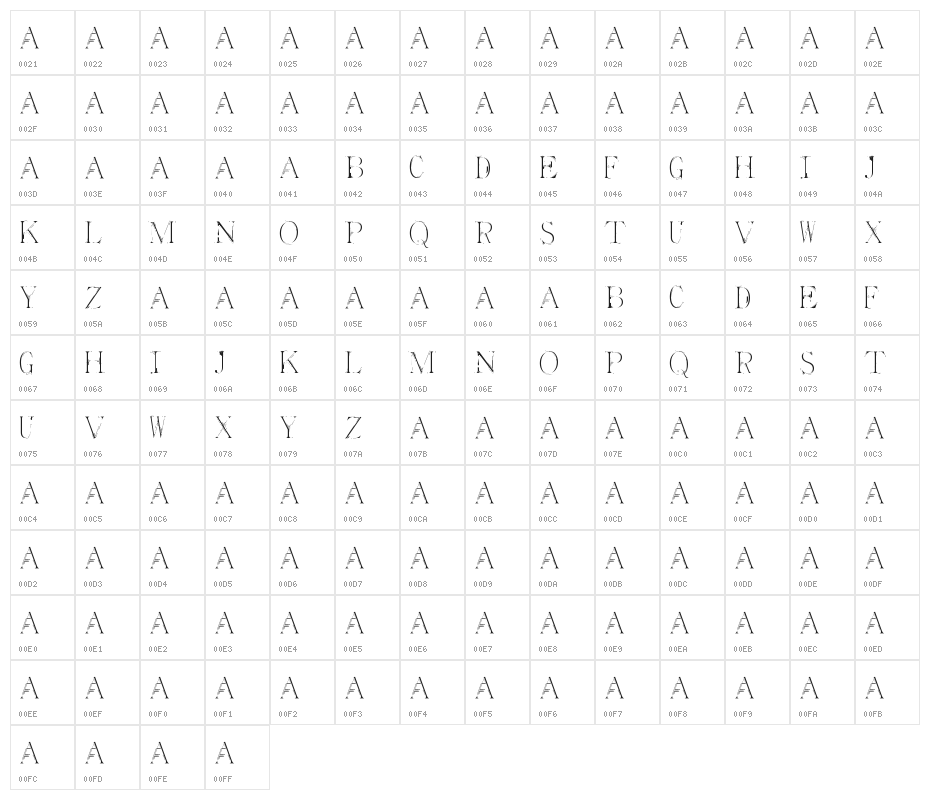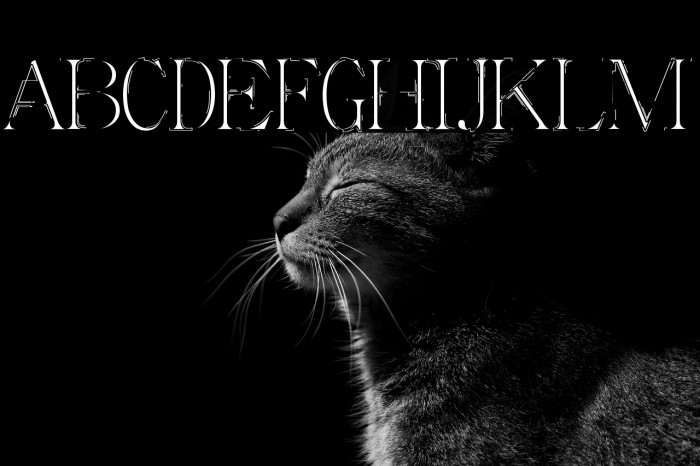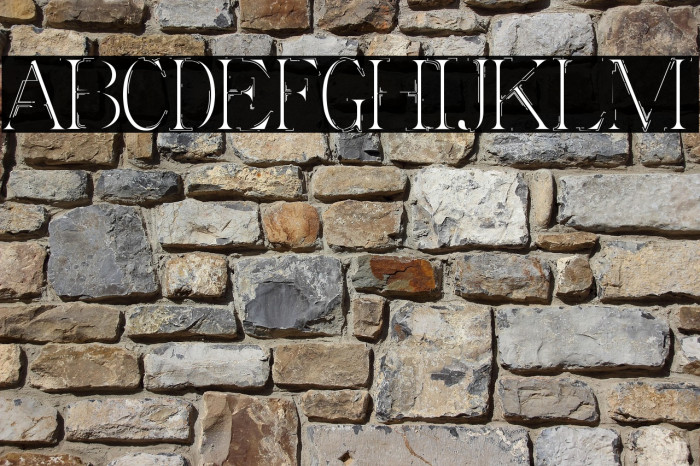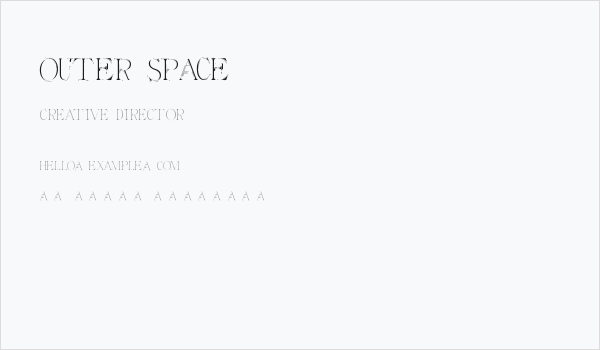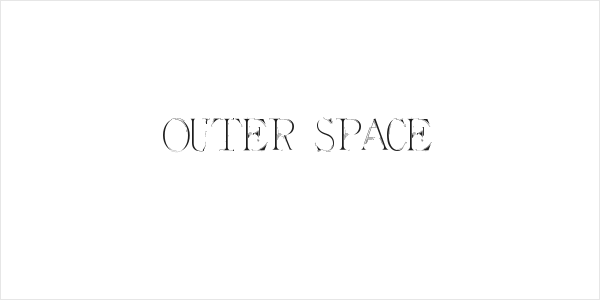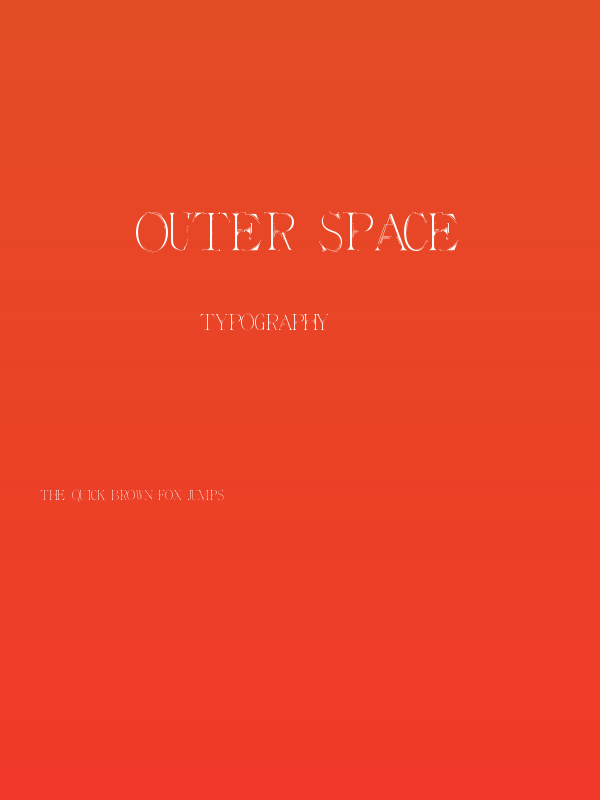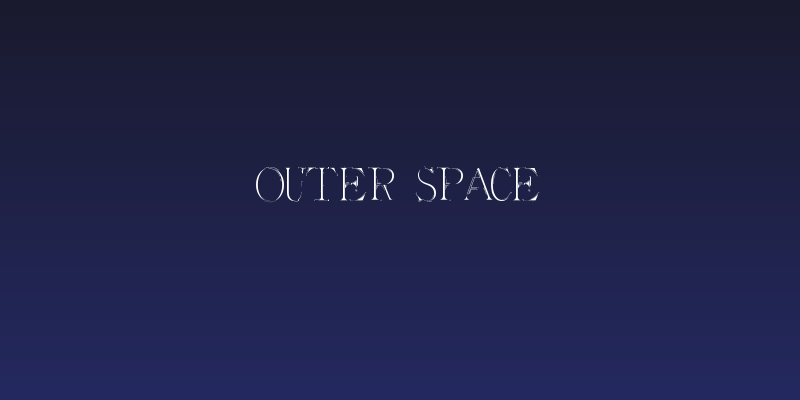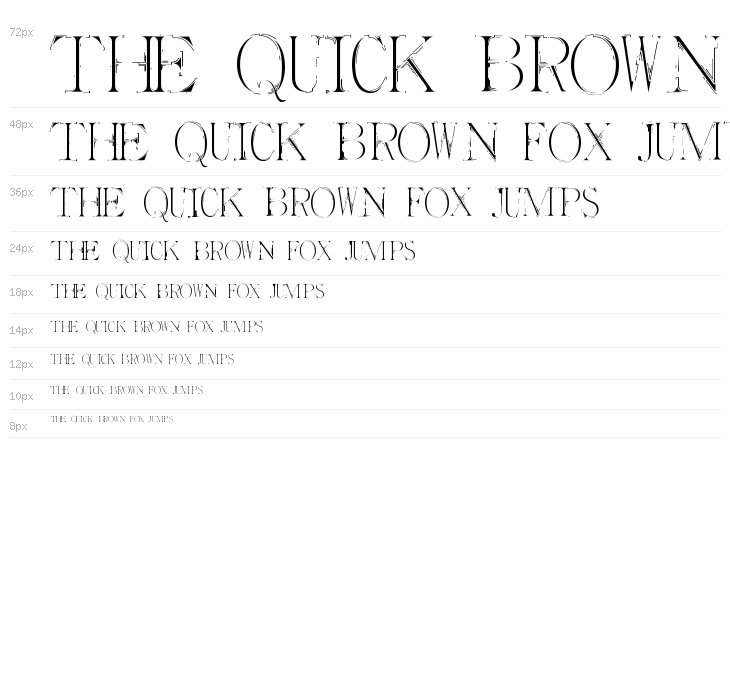
Outer Space Font
| Stil general | Modern, Futuristic, Edgy |
| Proiecte propuse | Ideal for sci-fi themed posters, video game titles, futuristic branding, and creative editorial designs. |